Choosing the best blackletter fonts can elevate design projects with a timeless elegance and luxurious flair. This careful selection of ten typefaces offers a refined Gothic aesthetic perfect for creating striking titles, elegant signage, or premium branding. While these fonts may not suit long passages, their rich textures and historic roots make them ideal for statements and decorative accents.
Dark Spire features bold, sharp strokes with dramatic terminal flourishes that command attention. It’s well-suited for luxury event branding or gothic editorial headers. Its detail, though, may feel overwhelming at smaller sizes and needs generous spacing to maintain readability.
Inspired by Celtic inlay ornament, Black Eoghan brings a regal and historic touch through its intricate internal detailing. It’s perfect for upscale labels or commemorative designs. The embedded lines, however, may blur at low resolutions, requiring careful use in digital formats.
Imperial Black exudes authority with its heavy weight, bold serifs, and ornamental elegance, ideal for premium packaging or luxury logos. But such density can feel visually heavy if overused or layered over complex backgrounds.
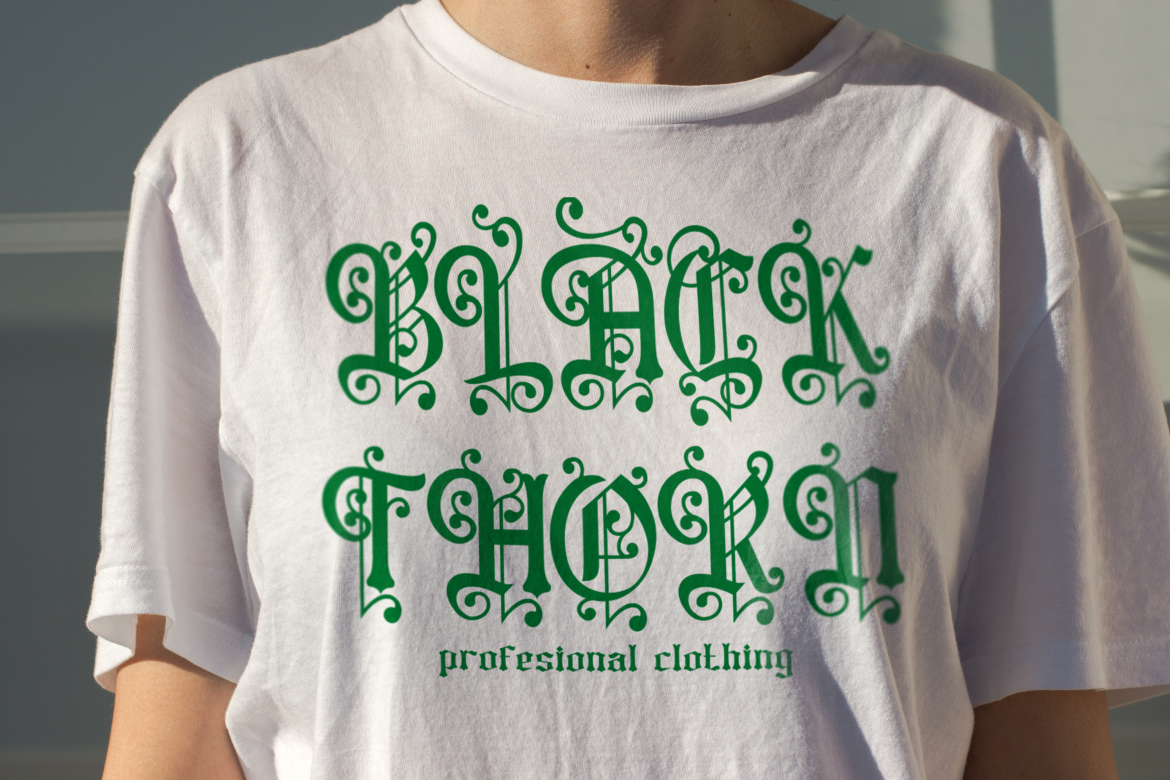
Clover Moly blends Blackletter with St. Patrick’s Day flair, featuring subtle Celtic curves that work beautifully on festive decorations or seasonal branding. It may lack the classic Gothic feel for more traditional designs, but it excels in themed contexts.
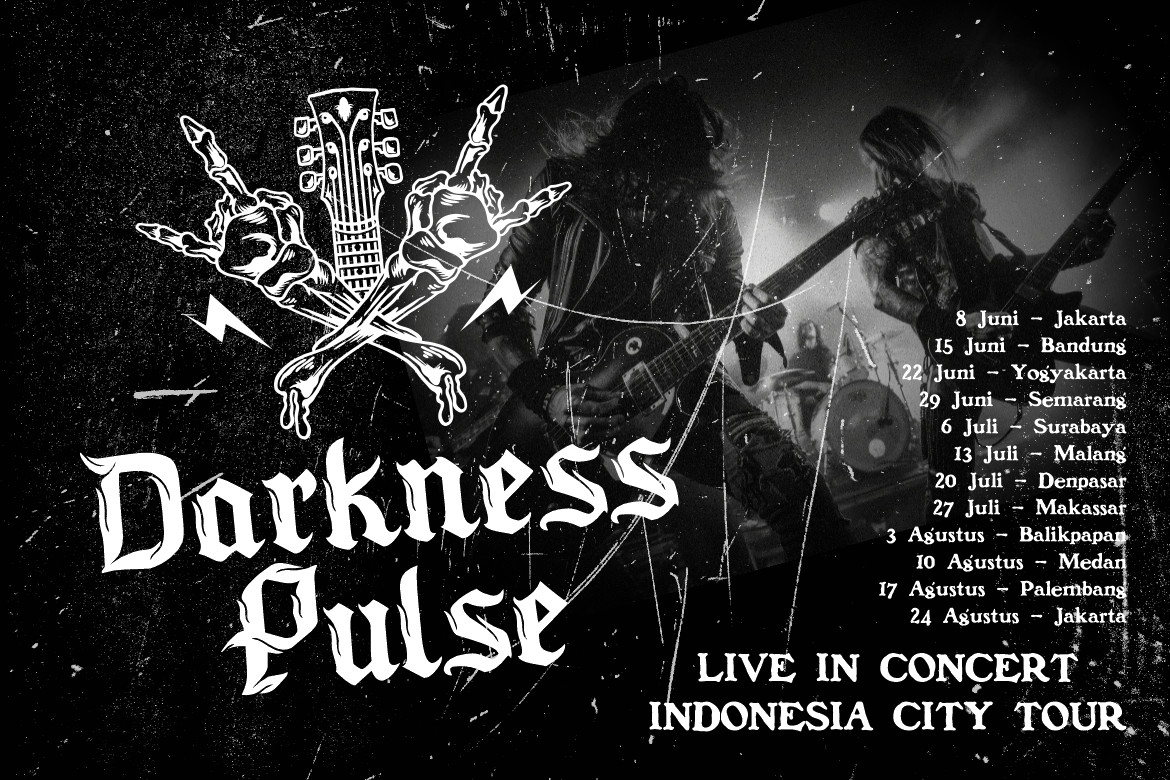
Powered by its edgy, flame-inspired embellishments, Vulture Kingdom adds a rebellious, modern twist to Blackletter. It’s ideal for premium music branding or alternative fashion, though its bold design may overshadow gentler design elements.
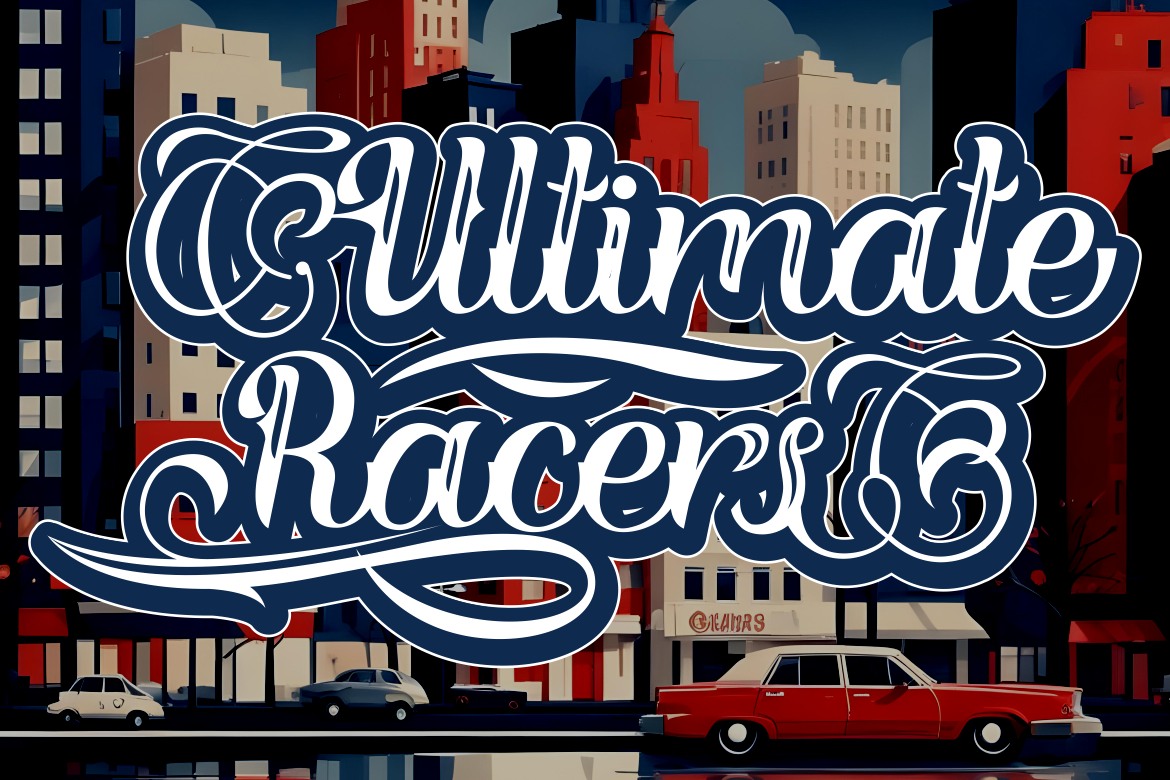
Winged Words merges Blackletter’s weight with the stylized flair of tattoo-script wings, smart for boutique tattoo shops or creative branding. As a display font, its legibility drops in finer text sizes, so it pairs best with simpler typefaces.
Colide Gothic offers a geometric take on Gothic design, with clean angles and modern proportions. It works well in contemporary editorial layouts or craft packaging. However, its uniformity might not carry the traditional drama of classic Blackletter.
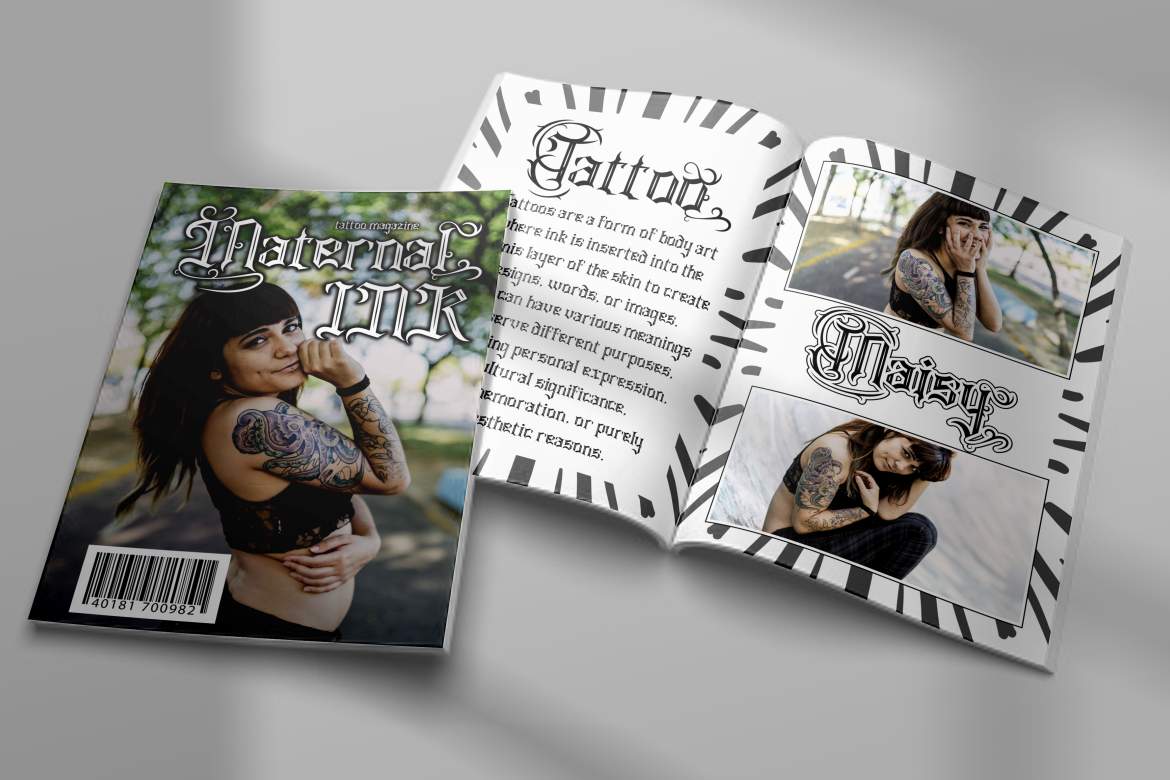
Atlas Celeste is another tattoo-inspired dark letter, offering strong lines and striking contrast ideal for fashion or artisanal branding. Its intense textures, though, may feel too bold for minimalist themes.
Evoking engraved metal and print, Classic Engrave strikes a perfect balance between history and finesse. Imagine monogrammed stationery or upscale jewelry packaging. Slightly skinnier strokes mean it can appear delicate, pair it with sturdy serif fonts.
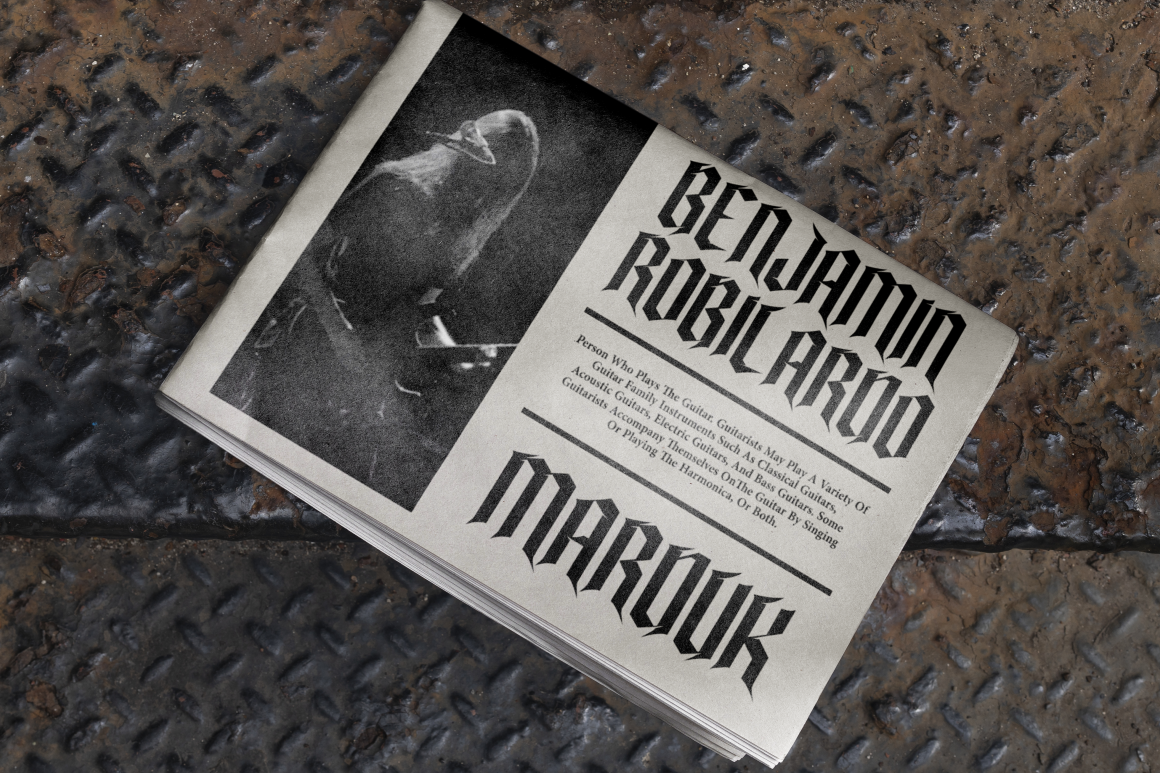
Lamphor captures attention with refined pointed strokes and alternate glyph choices, offering creative flexibility. Great in editorial titles or boutique shop signs, its complex forms need limited usage to avoid crowded layouts.
The best blackletter fonts deliver dramatic style and historic resonance when used appropriately. Pair them with clean serif or sans-serif fonts for contrast and clarity. Use them sparingly in headlines, logos, or thematic graphics to maintain visual impact without overwhelming the design. Avoid applying them at small sizes or in blocks of text to prevent readability issues. Instead, focus on showcasing their decorative strength in statement elements.
The font you choose shapes perception. When you select the best blackletter fonts, you’re making a deliberate aesthetic statement, sophistication, heritage, or grandeur. Whether it’s signage, event invitations, or brand logos, the right Gothic style contributes to the overall aesthetic and emotional tone. An elegant Blackletter conveys tradition and luxury; a modern twist adds edge without sacrificing polish.